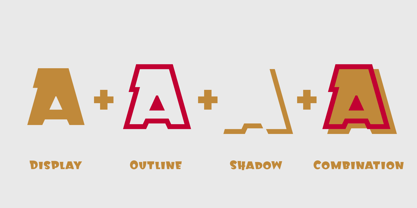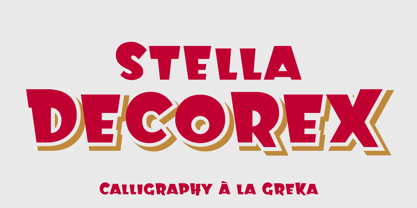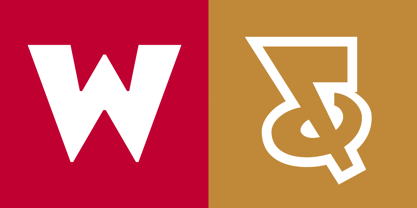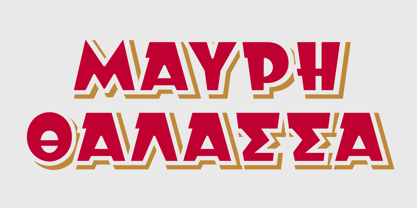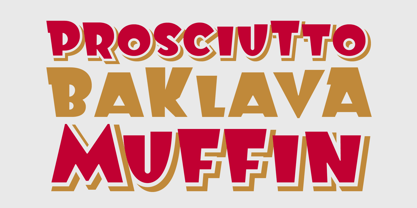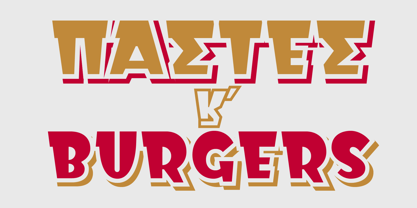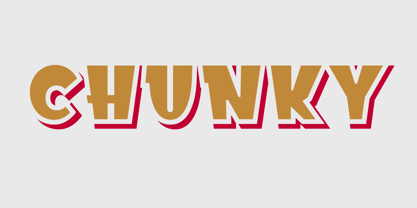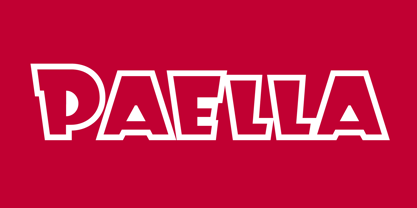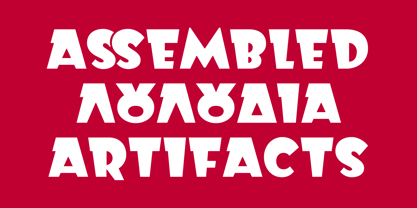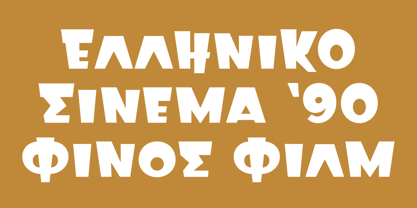
Stella Decorex
The Stella Decorex Font Family was designed by Panos Haratzopoulos, Yannis Karlopoulos and published by Fonts.GR. Stella Decorex contains 3 styles and family package options. More about this family
Stella Decorex, is an uppercase titling typeface in a wedge-shaped form, which was designed based on the sign of a store in the city of Kavala, Greece. This type of letter is often found in various store signs and corporate logos, with the most characteristic being that of the company “IZOLA”. Stella Decorex consists of three styles: display, outline and shadow which can be combined in one to create an effect. In addition to capital letters, it includes small capital letters – slightly parameterized and with a randomness in height.
Stella Decorex is part of Stella Project - Calligraphy à la greka, an attempt to study the forgotten art of greek calligraphy that flourished from the ’50s through the ’70s – an indirect conversation with the colleagues of the past. It’s a study on the tools and techniques of the time, a work of classification, documentation and adaptation of these special styles to modern media and communication tools.